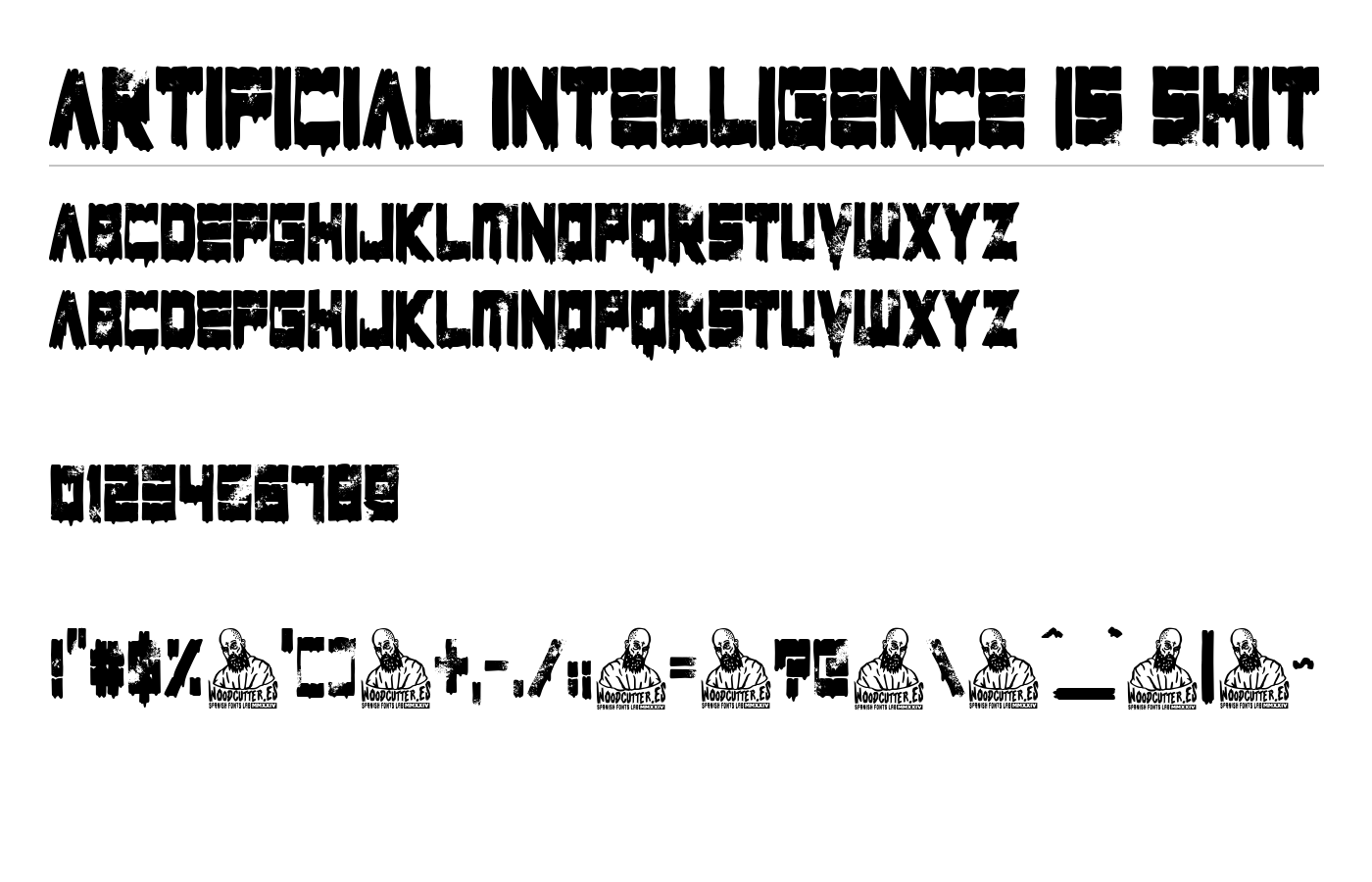
Artificial Intelligence Is Shit is a bold, distressed sans serif font with a rough, grungy texture that gives it a raw and edgy feel. Its blocky, uppercase letterforms feature a high weight and tight spacing, making it ideal for striking headlines, posters, or designs seeking a rebellious or urban aesthetic. This font works well in creative projects that aim to stand out with a noisy, imperfect personality.
Artificial Intelligence Is Shit Font
About Artificial Intelligence Is Shit Font
| Font family | Artificial Intelligence Is Shit Font |